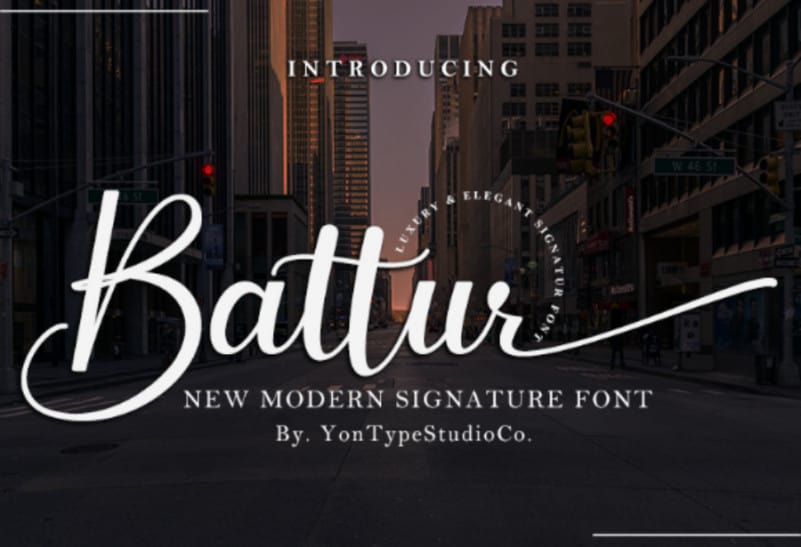
Aesthetic calligraphy fonts copy and paste. The word calligraphy is essentially a greek word which translates into beautiful writing. Its useful for generating instagram bio symbols to make your profile stand out and have a little bit of individuality. Its going to work pretty much anywhere online works almost everywhere its just texttext with special computer letters and symbols kind of like emoji. All fonts are categorized and can be saved for quick reference and comparison.
The aesthetic fonts copy and paste can be likened to japanese letters and symbols as they normally use the format of the full width character as opposed to the half width format. Why use a copy and paste fonts website. Just type or paste your text into the top box and well generate a variety of fonts for you. This online font changer is free and theres no need to download software to use it.
They often look as if they were drawn with flat tipped pens or brushes. Calligraphy fonts resemble elegant handwriting. Font copy paste cool free fancy text and stylish fonts font copy paste is a cool free online and generator website to generate online fancy text with more than 00 100 text fonts styles. How to text with calligraphy font letters use the input field above to type in your message.
Calligraphy fonts are widely used in wedding event invitations original logo design religious art films tv etc. Calligraphy text generator copy paste if one looks at the history of this font one finds out that it was perhaps the romans who made this font widely available to the masses. Burgues script created by alejandro paul is a typical font family of calligraphy style. Whether its for your twitter instagram or facebook bio getting noticed on vimeo youtube or creating that perfect digital signature our copy and paste font generator has 100 of copy and paste fancy fonts you can.